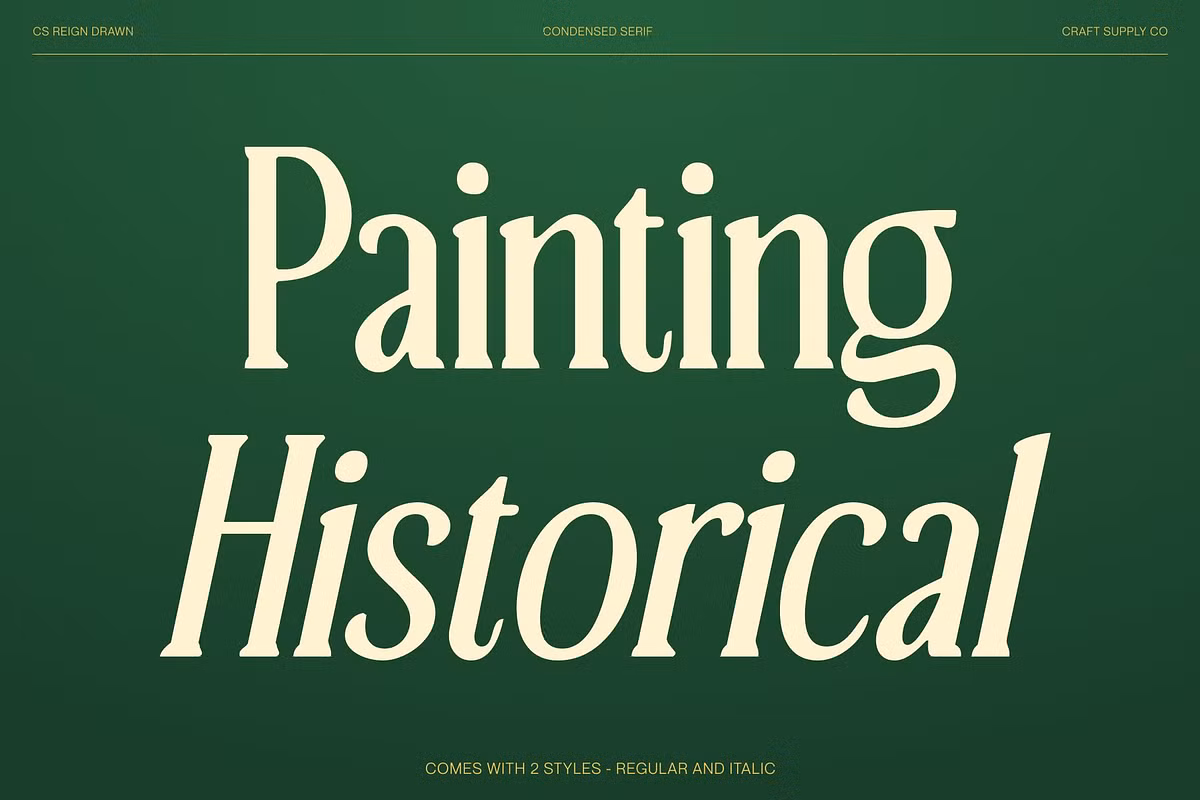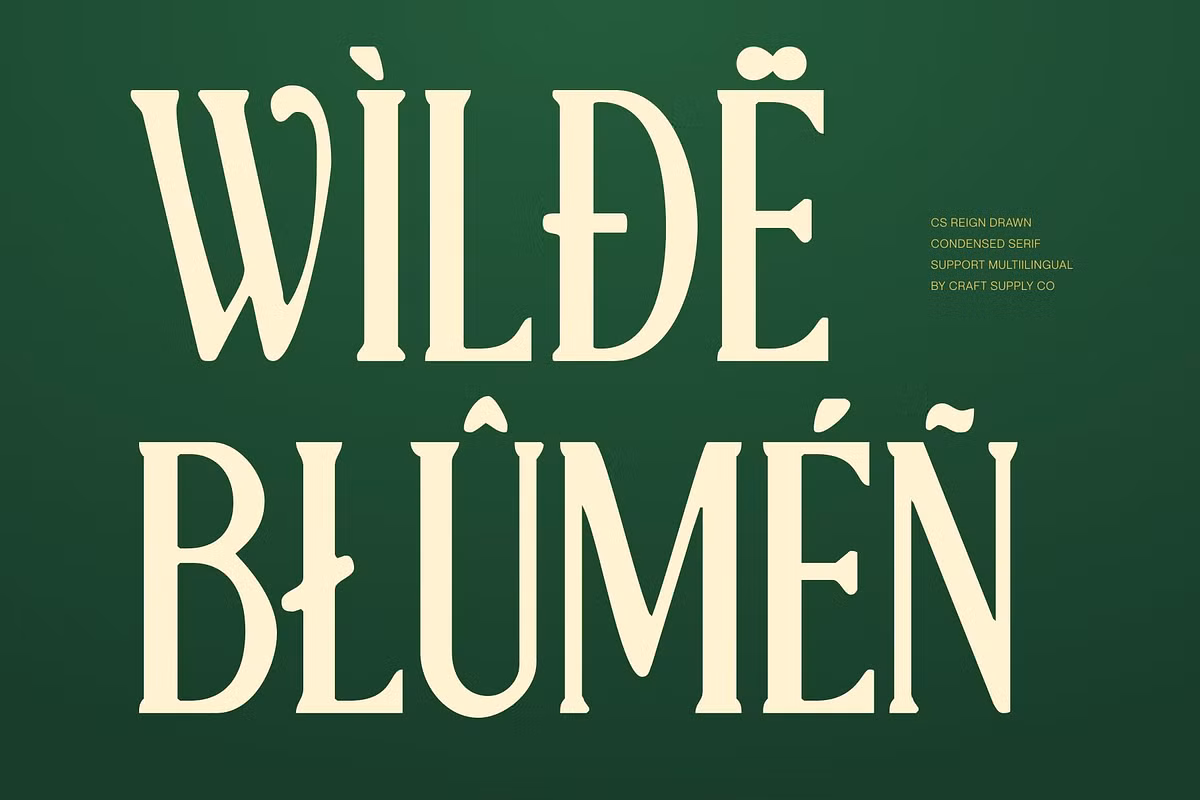
CS Reign Drawn: Elegant Hand-Drawn Serif Font for Luxury Branding
Introduction to CS Reign Drawn
CS Reign Drawn is a really nice font that looks fancy and sophisticated. It has long, thin lines and a simple design that makes it perfect for high-end projects. This font is great for making your brand look luxurious and expensive. It also has a handmade feel that adds a touch of warmth and personality to your work. If you want to make your brand stand out or tell a story with your visuals, CS Reign Drawn is a great choice. It’s elegant and refined, making it perfect for projects that need a little extra class.
With its unique design, this font can help you create something truly special and eye-catching. Whether you’re working on a big project or just want to add some flair to your everyday designs, CS Reign Drawn is definitely worth considering.
Design Style of CS Reign Drawn
The CS Reign Drawn font has a really elegant look, mostly because of its tall and slender shape. The little lines at the end of the letters, called serifs, aren’t just for show – they actually help make the font look more refined and fancy. Each letter is carefully designed to be both modern and clear, but also timeless and classy.
What’s interesting is that the font has a hand-drawn feel to it, which gives it a soft and organic touch that pairs nicely with its precise and structured design. This mix of styles makes the font stand out and gives it a unique personality. This elegant serif font is perfect for various applications, from print to digital media. The delicate details and graceful lines make CS Reign Drawn a standout choice for anyone looking to communicate luxury and sophistication.
Characteristics of the Typeface
- The long and delicate serifs make it easier to read, and they also add a touch of elegance.
- The font has a special texture that looks like it was drawn by hand, which makes it feel cozy and handmade.
- Simple and sleek, this design features clean lines and a slender shape, giving it a modern look and feel.
- It’s a look that never gets old. This style mixes old and new, so it works for lots of different brands.
Character Sets and Font Features
CS Reign Drawn has a wide range of characters that can be used in many different languages. It includes uppercase and lowercase letters, numbers, and punctuation marks, all of which meet OpenType standards. What’s more, CS Reign Drawn supports characters from many languages, thanks to its many accent options, making it a great choice for use around the world.
This means that people who speak different languages can use CS Reign Drawn to communicate effectively. The typeface is designed to be versatile and useful for a variety of purposes, from writing emails to creating documents and more. With its comprehensive character set, CS Reign Drawn is a great option for anyone who needs to work with text in multiple languages.
Use Cases for CS Reign Drawn
CS Reign Drawn is a natural choice for a range of upscale applications. Its chic and poised presence can add sophistication and emotional depth to various projects. Here are some of the best use cases for this elegant font:
- Luxury Branding: Use CS Reign Drawn in logos, branding materials, and advertisements to convey a sense of exclusivity.
- Fashion Editorials: The font’s refined appearance is perfect for magazine covers and fashion spreads, helping to tell compelling visual stories.
- Beauty Campaigns: Elevate beauty product packaging and promotional materials with the font’s elegant touch.
- High-End Invitations: Whether for weddings or exclusive events, the font adds a level of sophistication to invitations and stationery.
Pairing Suggestions for CS Reign Drawn
When utilizing CS Reign Drawn, it’s essential to consider typography pairings that complement its elegant style. Here are some pairing suggestions:
- Sans-Serif Fonts: Pair CS Reign Drawn with a modern sans-serif font like Montserrat or Lato for a balanced contrast between elegance and modernity.
- Script Fonts: For a more artistic approach, combine it with a script font such as Great Vibes to create a luxurious and inviting feel.
- Try using a simpler serif font, like Playfair Display, with CS Reign Drawn to get a classic look that’s still easy to read.
These pairings enable you to create stunning visual hierarchies that enhance your overall design aesthetic.
So, what makes CS Reign Drawn so special? It’s a beautiful, hand-drawn serif font that’s perfect for adding a touch of sophistication to your designs. With its slender lines, refined serifs, and unique texture, it’s great for luxury brands, fashion magazines, and high-end packaging.
When you use this font, you can create designs that really stand out and leave a lasting impression on your audience. Whether you’re a seasoned designer or just starting out, CS Reign Drawn gives you the tools you need to add a little elegance and grace to your work. It’s all about telling a story with your designs, and this font helps you do just that. By choosing CS Reign Drawn, you can take your projects to the next level and make them truly unforgettable.